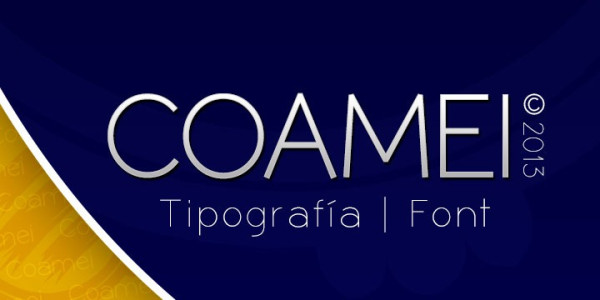
Coamei Font, is a sans serif stunning when combined or separately. This sans serif font style is legible and stunningly designed.
| Designer Name: | Ixipcalli |
| Classification: | Sans Serif Fonts, Style / Aesthetic Fonts |